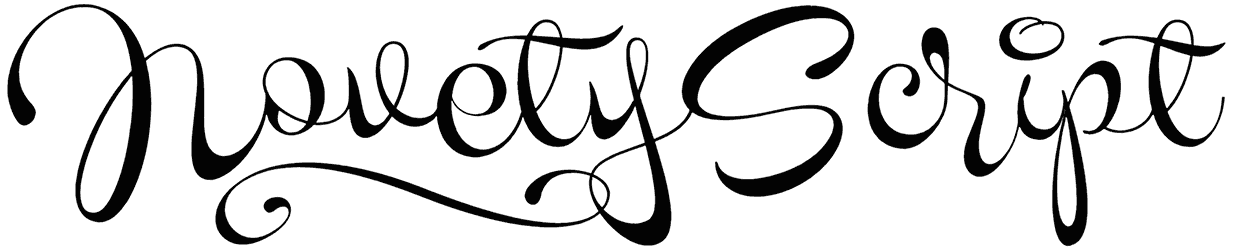
Novety Script Font
It may appear that selecting the right font for a design is difficult, but RB is here to show you how to expand your work of art by using a beautiful fantasy font. Novety Script is eager to add an artistic touch to your design.
Despite the lack of numbers, its flowing appearance and connected letters can provide additional options for designing videos, tattoos, and romantic writing. Check out RB for more information.
http://mn.sg/novetyUse underscore _ anywhere in a word to make a swash.
Example: Nov_ety
Use multiple underscore to make different swashes.
Example: Cute___ness